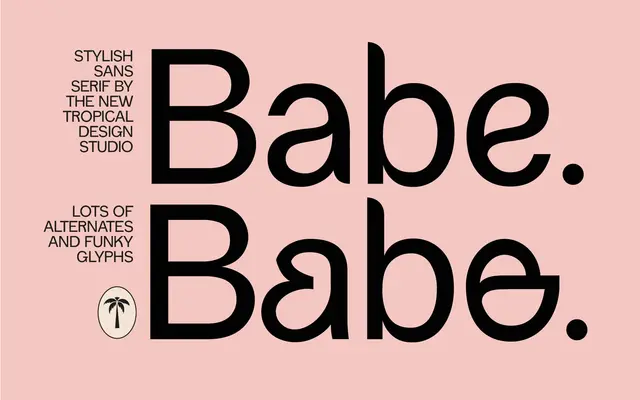
Babe Sans
A single-weight display sans with deliberately groovy curves and stylistic alternates aimed at branding and social media work.
Built for personality over utility, this sans trades neutrality for curvy, characterful letterforms with funky alternates that push it firmly into display territory. Coverage extends to a solid range of Latin Extended glyphs including accented characters for Western and Central European languages. Files ship in OTF, TTF, WOFF, WOFF2 and SVG formats, covering desktop, web and logo use under a tiered commercial licence.
Described as a clean, modern sans with groovy curves and funky alternates, placing it in display sans territory rather than a neutral workhorse grotesque.